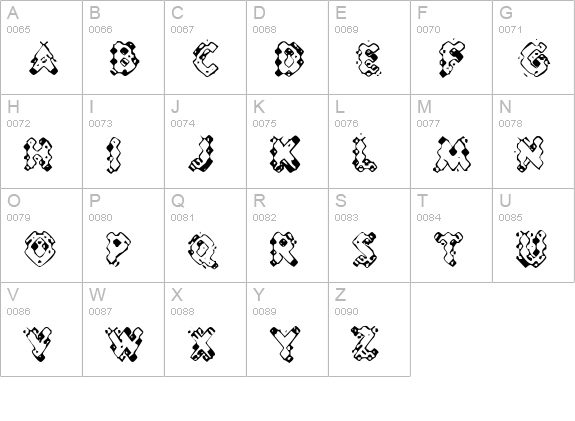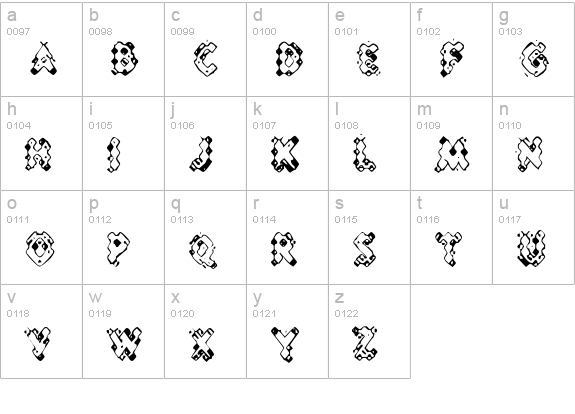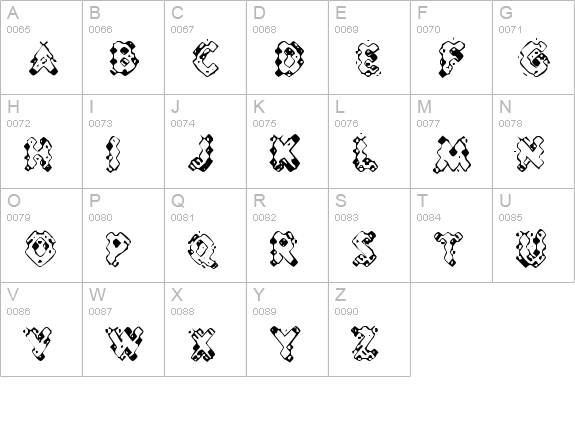
Pessimistic Lines Font Details
Pessimistic Lines font is a remarkable typeface that encapsulates the essence of pessimism and melancholy in its design. With its bold and angular lines, this font exudes a sense of darkness and gloom, making it perfect for conveying a somber mood in any creative project. Each character of Pessimistic Lines font is meticulously crafted to evoke a sense of despair and negativity. The sharp edges and uneven strokes create a unique and haunting aesthetic that sets this font apart from others. Whether you're designing a poster, a book cover, or a website, Pessimistic Lines font will add a touch of brooding elegance to your work. What's even better is that Pessimistic Lines font is available free of charge for personal and commercial use. You can easily download this font from FontsMarket.com, a trusted source for high-quality fonts. By offering this font for free, the creators of Pessimistic Lines aim to spread the gloomy beauty of this typeface to as many designers and artists as possible. So, if you're searching for a font that conveys melancholy and pessimism with every letter, look no further than Pessimistic Lines font. Download it now from FontsMarket.com and let your creativity be shrouded in the somber allure of this remarkable typeface.